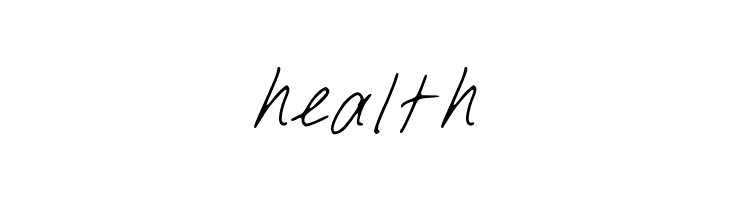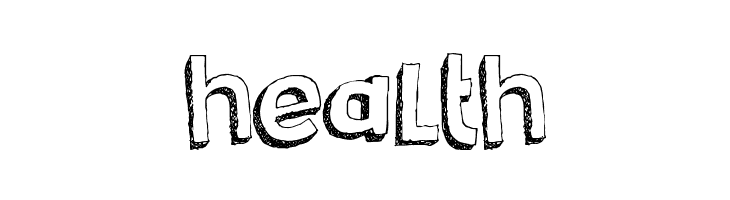
A playful font with characters enclosed in ovals, offering a clean and modern look.
A playful font with characters enclosed in ovals, reminiscent of test answer sheets.
A playful, rounded font with smooth curves and uniform thickness.
A dynamic, slanted handwritten font with a casual elegance.
A chaotic and expressive font with jagged, irregular strokes and a dripping effect.
A bold, brush-style font with a hand-painted look.
A bold, brush-style font with dynamic, hand-painted strokes.
A bold, distressed font with a rebellious and edgy style.
A bold, hand-drawn font with a textured, sketch-like appearance.
A playful, decorative font with tall, narrow characters and unique starburst symbols.